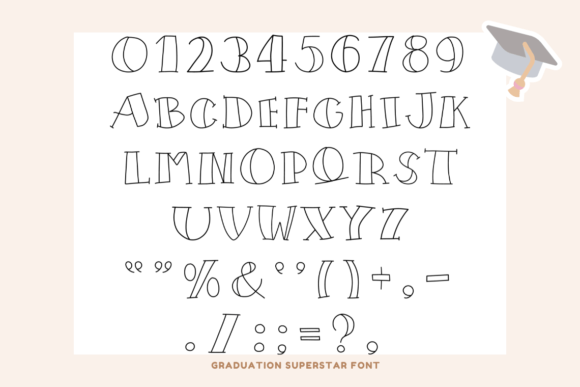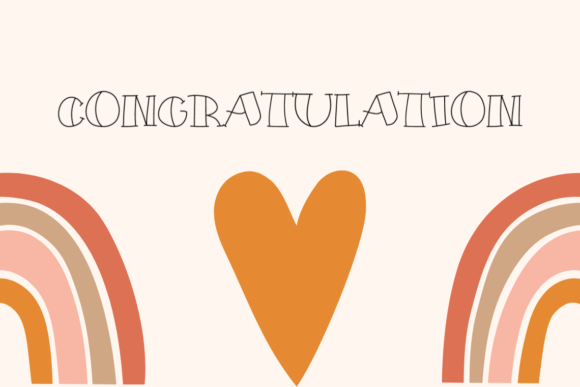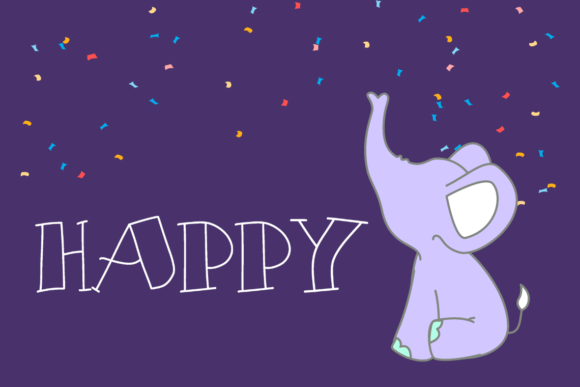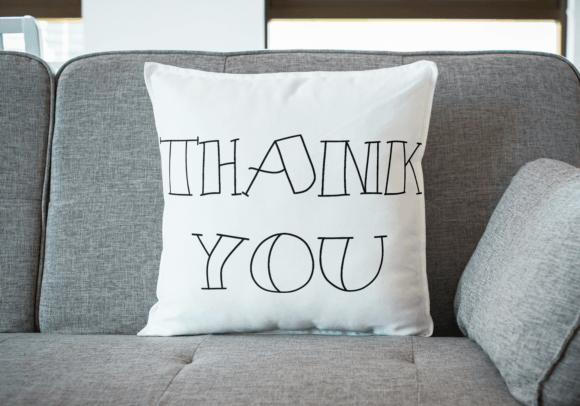
Introducing Graduation Superstar Font: The Perfect Celebration Companion for Designers and Crafters!
Are you a designer or crafter looking for the perfect font to capture the essence of graduation, school, and academic accomplishments? Look no further! We’re thrilled to introduce Graduation Superstar Font, a delightful handwritten font that’s sure to make your design projects shine. With its playful alphabet graphics, this font is ideal for creating paper notes, worksheets, and other educational materials that celebrate the joy of learning.
What Makes Graduation Superstar Font Special?
Graduation Superstar Font is more than just a font – it’s a celebration of academic achievements and the memories that come with it. This charming handwritten font is designed to evoke the feeling of excitement, pride, and joy that comes with graduation day. Whether you’re creating party invitations, diplomas, or educational resources, Graduation Superstar Font is the perfect choice to add a personal touch to your designs.
Key Features of Graduation Superstar Font
- Playful Alphabet Graphics: Each letter is carefully crafted with a playful, handwritten style that’s sure to delight.
- Perfect for Educational Materials: Create engaging paper notes, worksheets, and other educational resources that make learning fun.
- Celebratory Feel: Capture the excitement and pride of graduation day with a font that’s designed to shine.
How to Use Graduation Superstar Font in Your Design Projects
Graduation Superstar Font is versatile and can be used in a variety of design projects, including:
- Party Invitations: Create custom invitations that set the tone for a memorable celebration.
- Diplomas and Certificates: Add a personal touch to official documents with a font that’s both elegant and playful.
- Educational Resources: Create engaging worksheets, activity sheets, and other educational materials that make learning fun.
- Social Media Graphics: Use Graduation Superstar Font to create shareable graphics that celebrate academic achievements.
Why Designers and Crafters Love Graduation Superstar Font
Designers and crafters love Graduation Superstar Font for its unique blend of playfulness and sophistication. This font is perfect for those who want to add a personal touch to their designs without sacrificing professionalism. With Graduation Superstar Font, you can:
- Stand Out from the Crowd: Use a unique font that sets your designs apart from the rest.
- Add a Personal Touch: Infuse your designs with a sense of personality and whimsy.
Graduation Superstar Font is the perfect celebration companion for designers and crafters who want to capture the essence of graduation, school, and academic accomplishments. With its playful alphabet graphics and versatile design, this font is sure to shine in your design projects. So why wait? Introduce Graduation Superstar Font to your design toolkit today and make your projects sparkle!